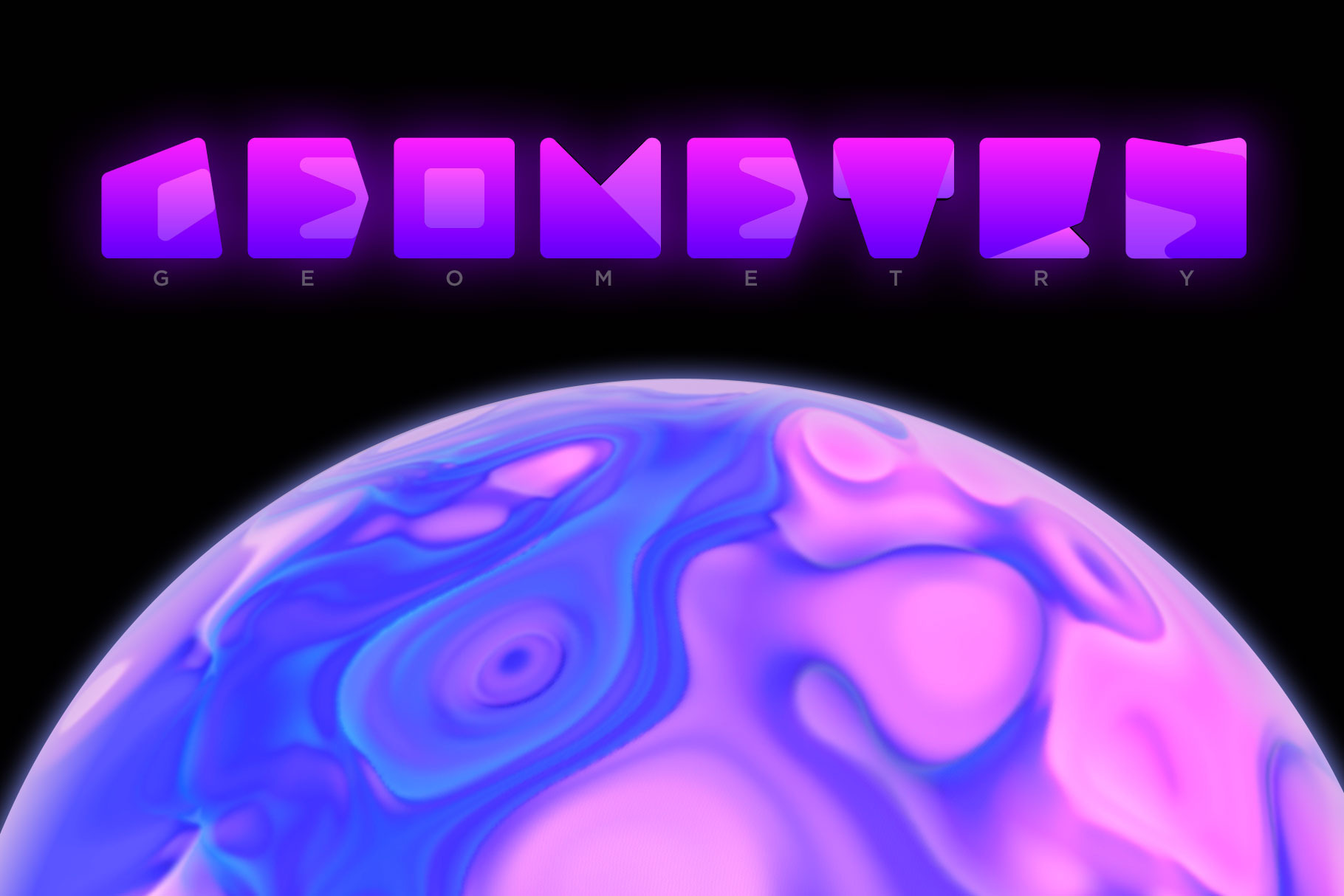
Geometry Neon Color Font
Geometry is a unique color typeface.
This amazing font would be perfect for quotes, logos, clothing brand, design greeting, prints, web design, invitation, business cards, cafe and much more.
- Geometry Regular
- Geometry Neon Color
- Geometry Neon Mono
- Only Uppercase